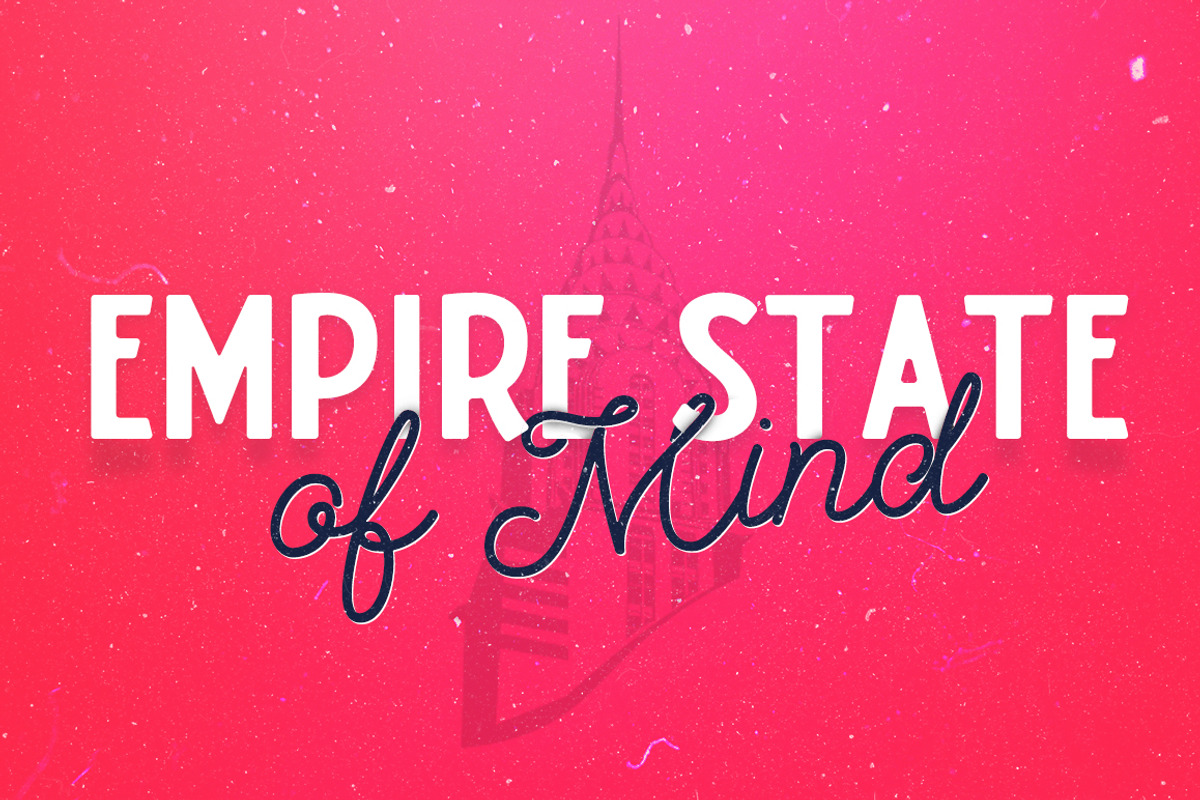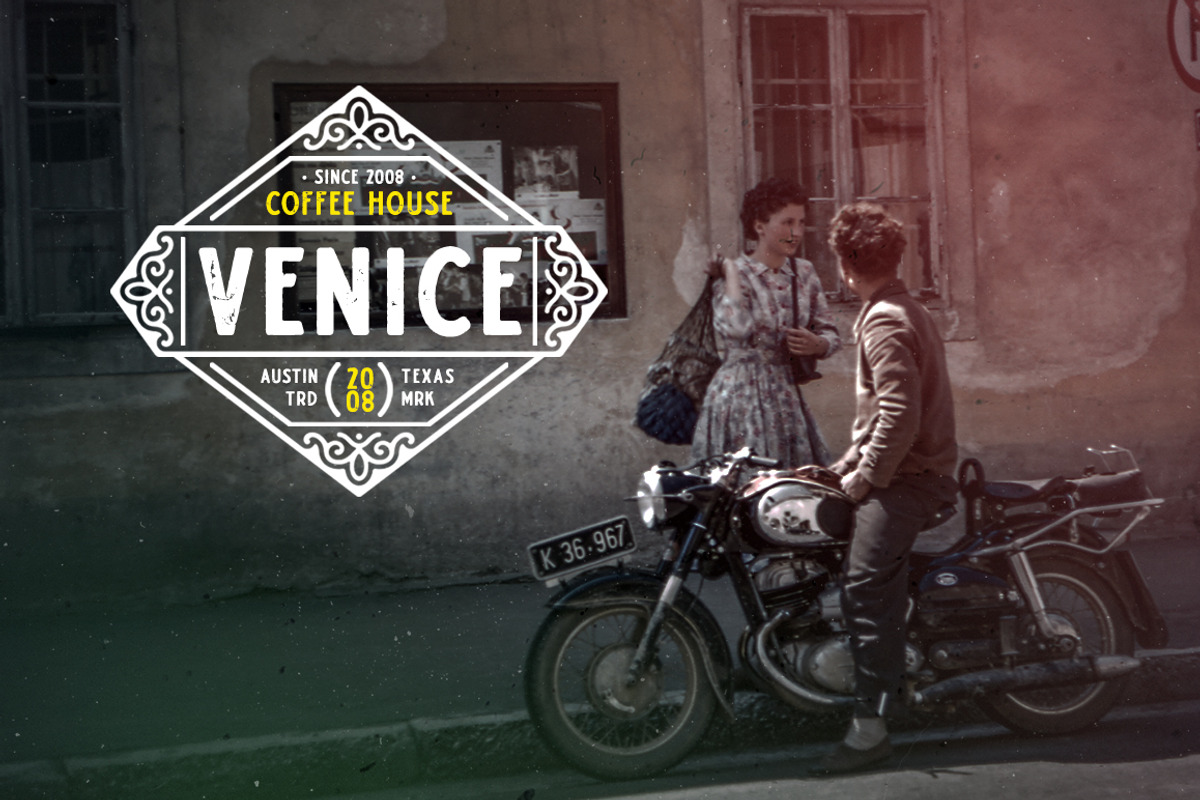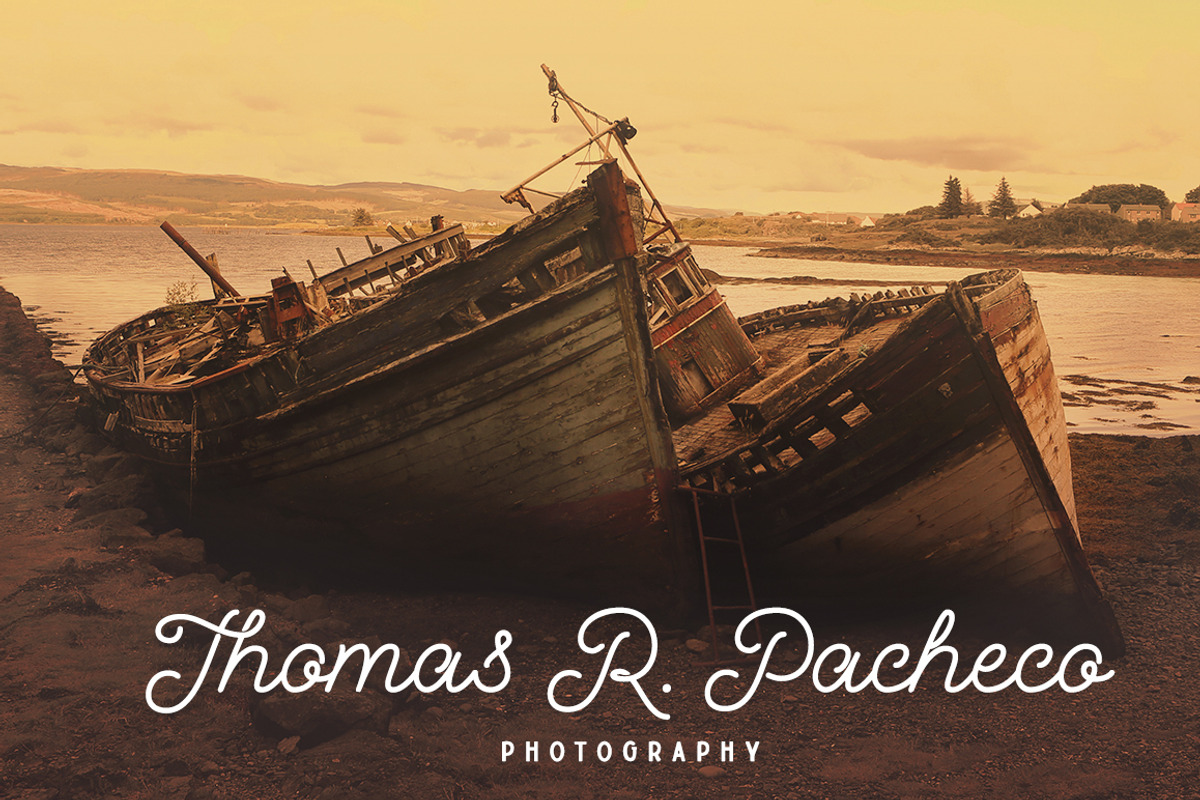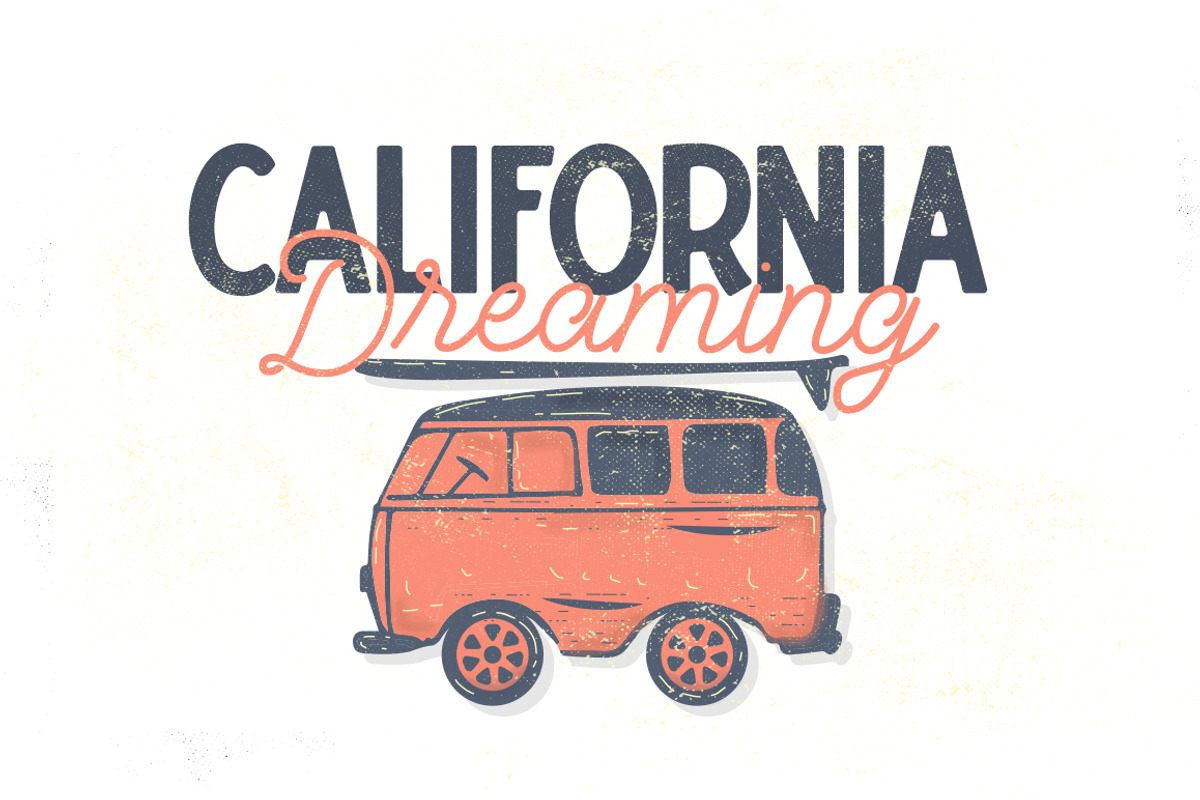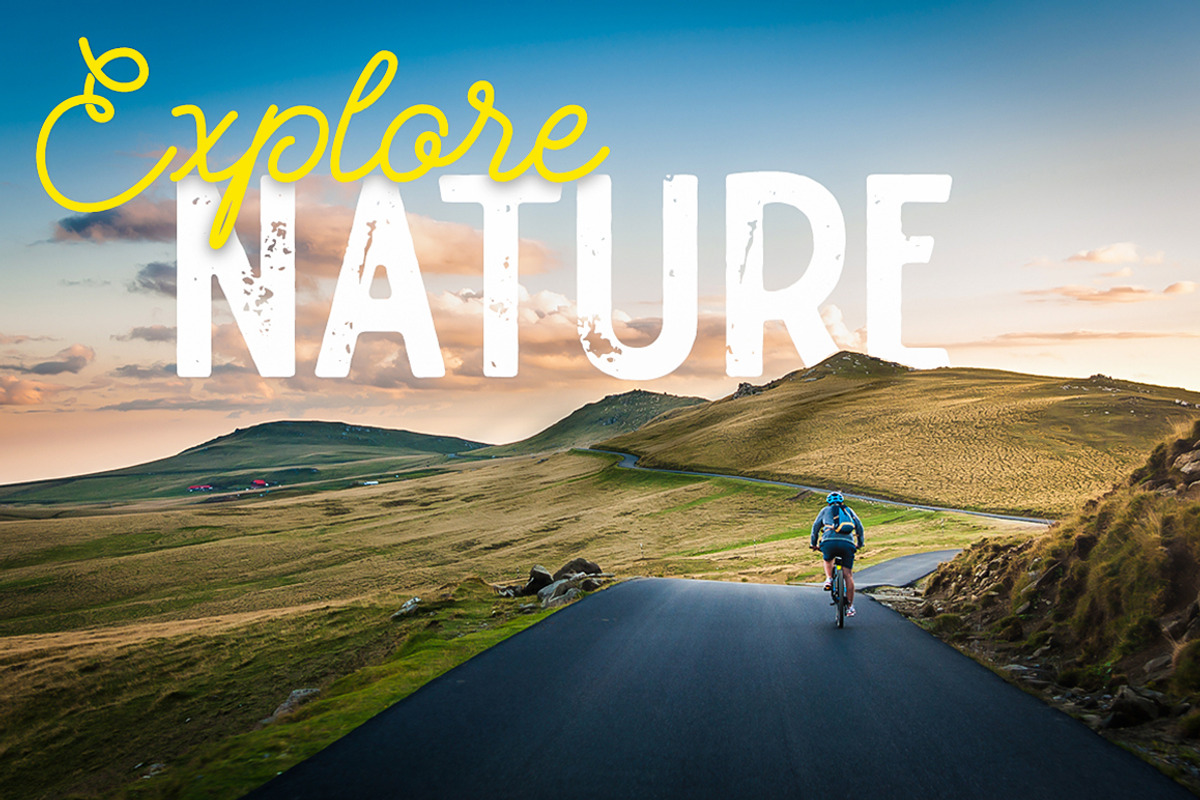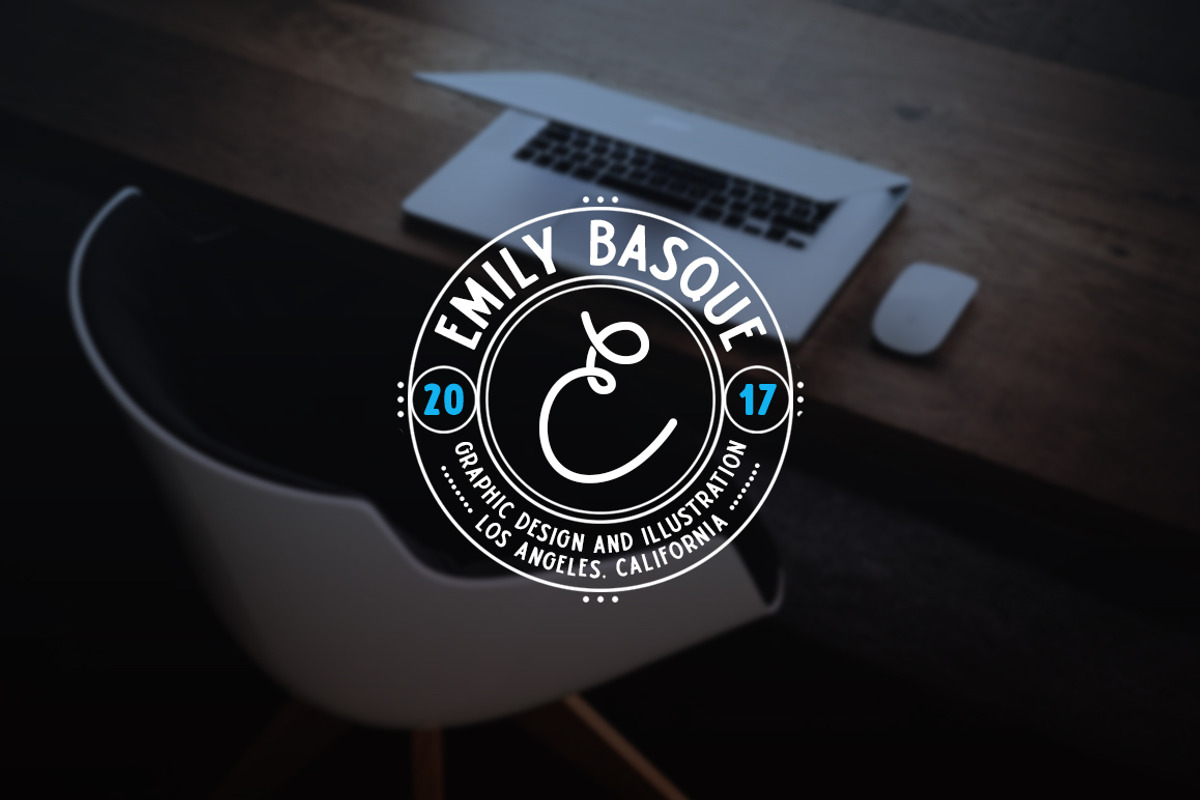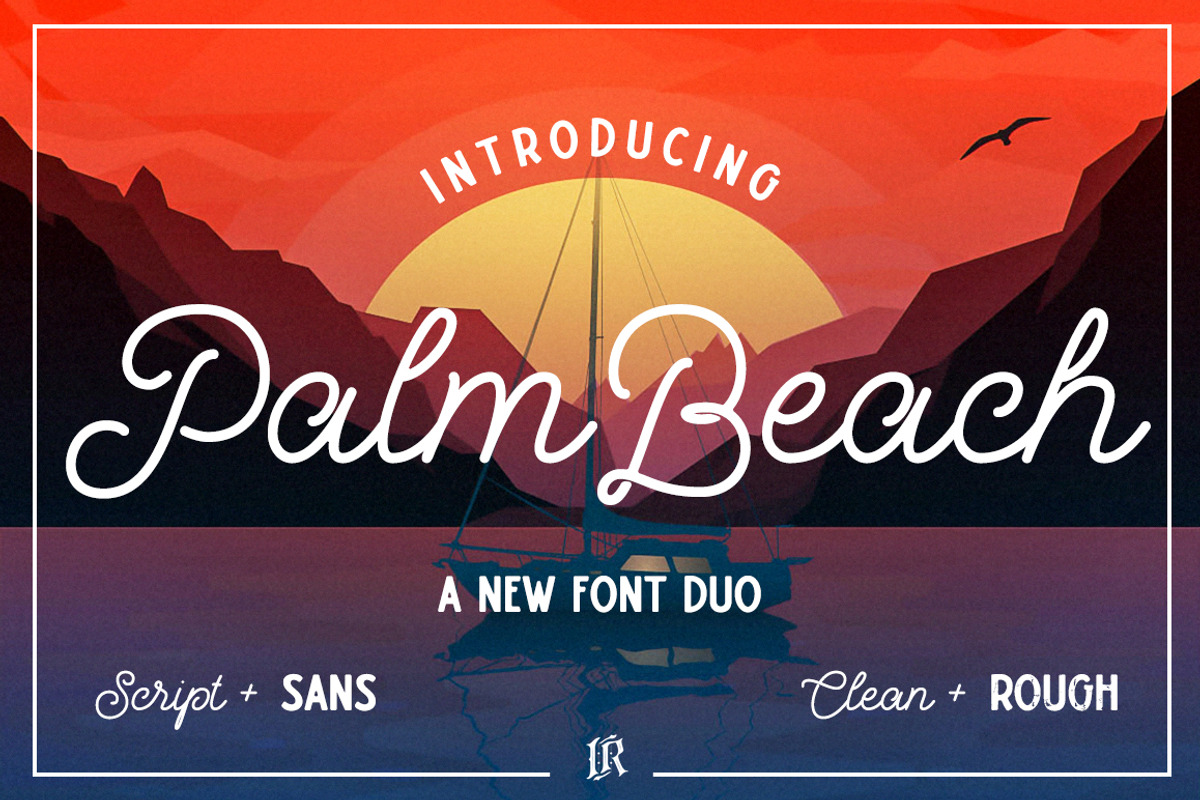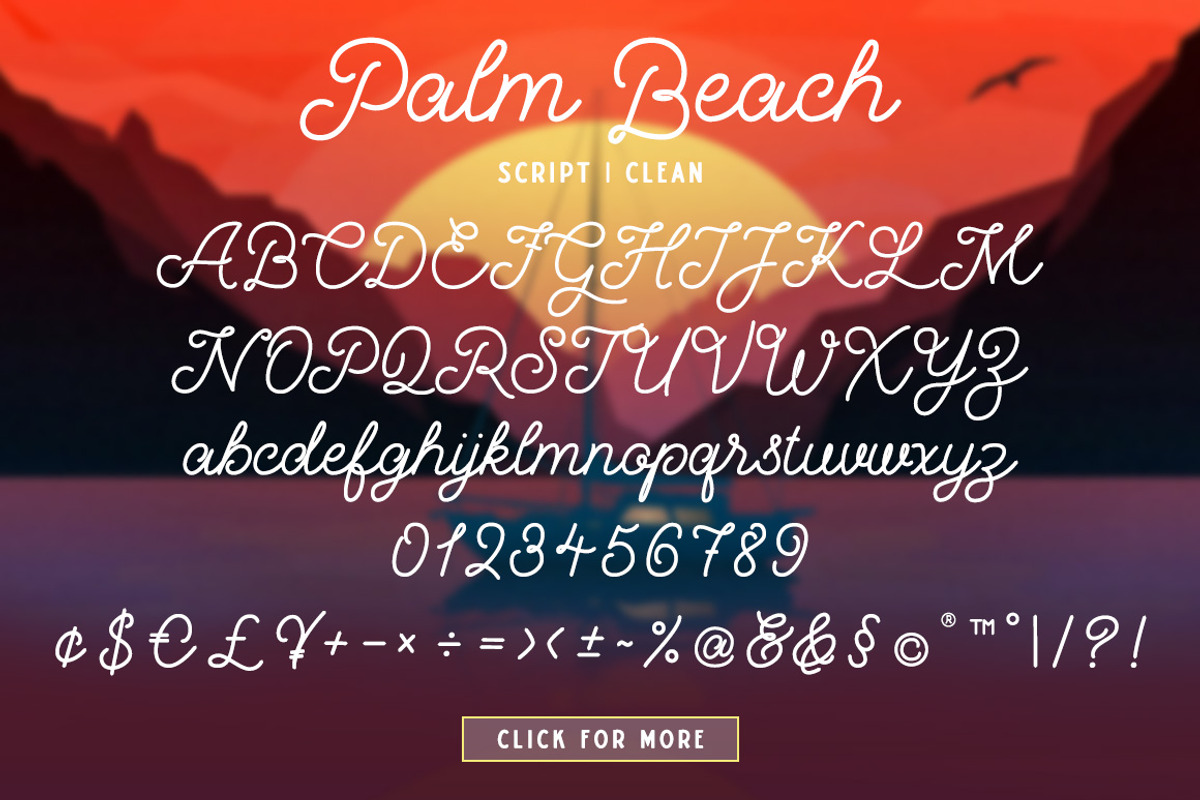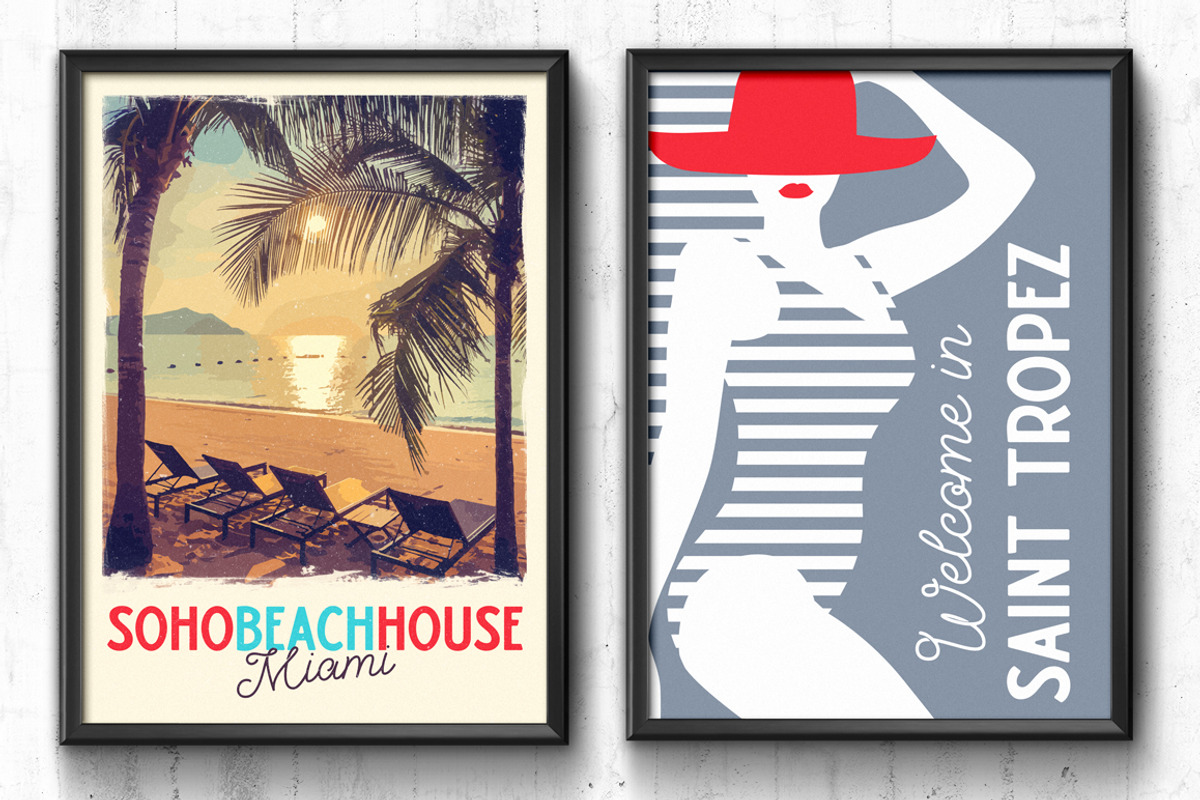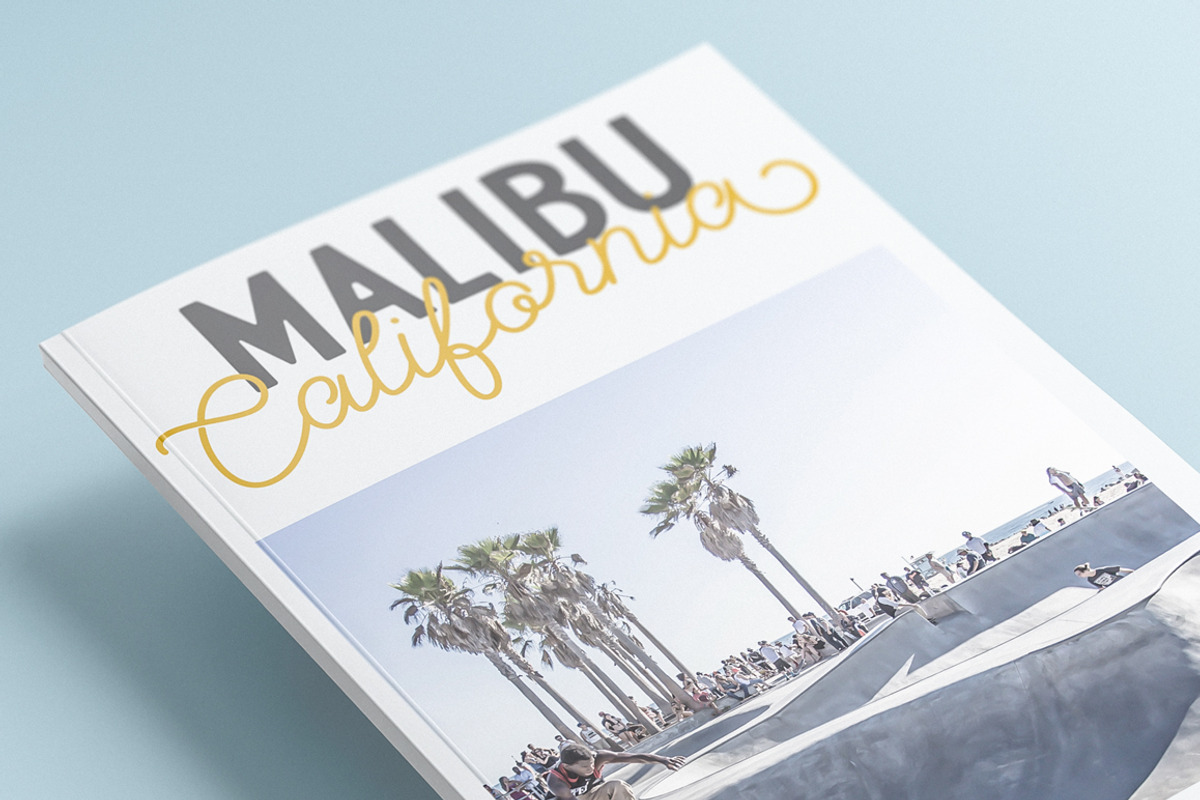
Palm Beach Font Duo
Palm Beach is the font duo with multilingual support. Is ideal for vintage posters, t-shirts, magazines, phone covers, social media, restaurant menus, greeting cards, invitations, weddings, headers and many more.
This font duo comes with a complete set of lowercase and uppercase characters, script version lowercase stylistic alternates, a large range of punctuation ligatures, numerals and and multilingual support.
Palm Beach Script is a set of 478 glyphs, Upper and Lowercase Characters with ligatures, numerals and lot of punctuation glyphs and 1-7 stylistic alternates for each character. Western and Central European characters support.
Palm Beach Sans is a set of Uppercase character numerals and lot of punctuation glyphs. Western European Characters.
BOTH FONT COMES IN CLEAN AND ROUGH VERSIONS